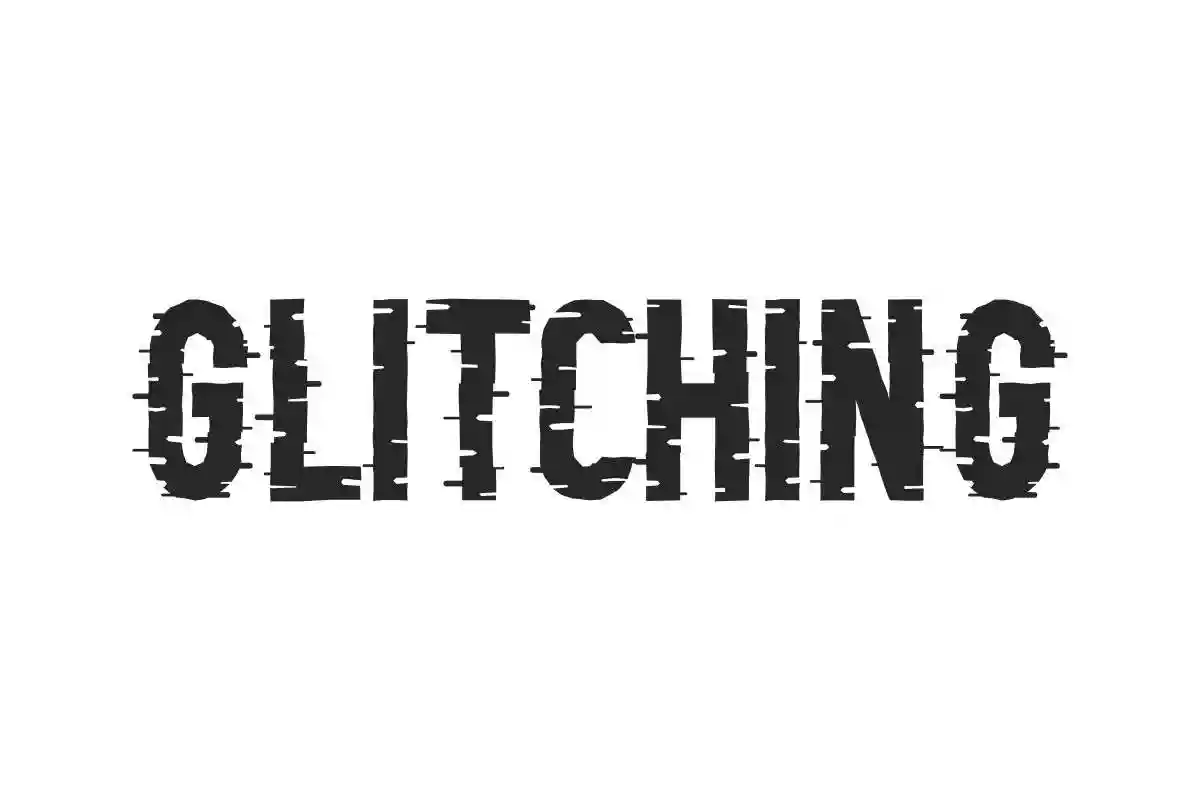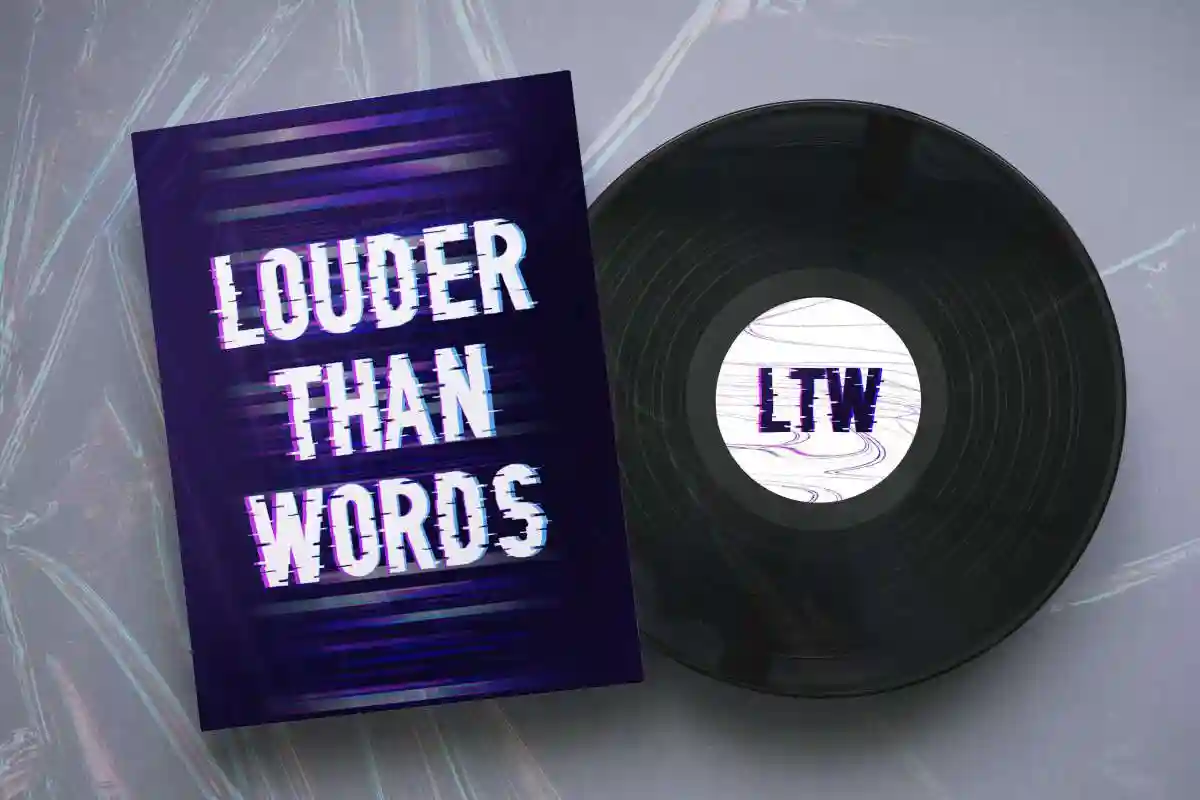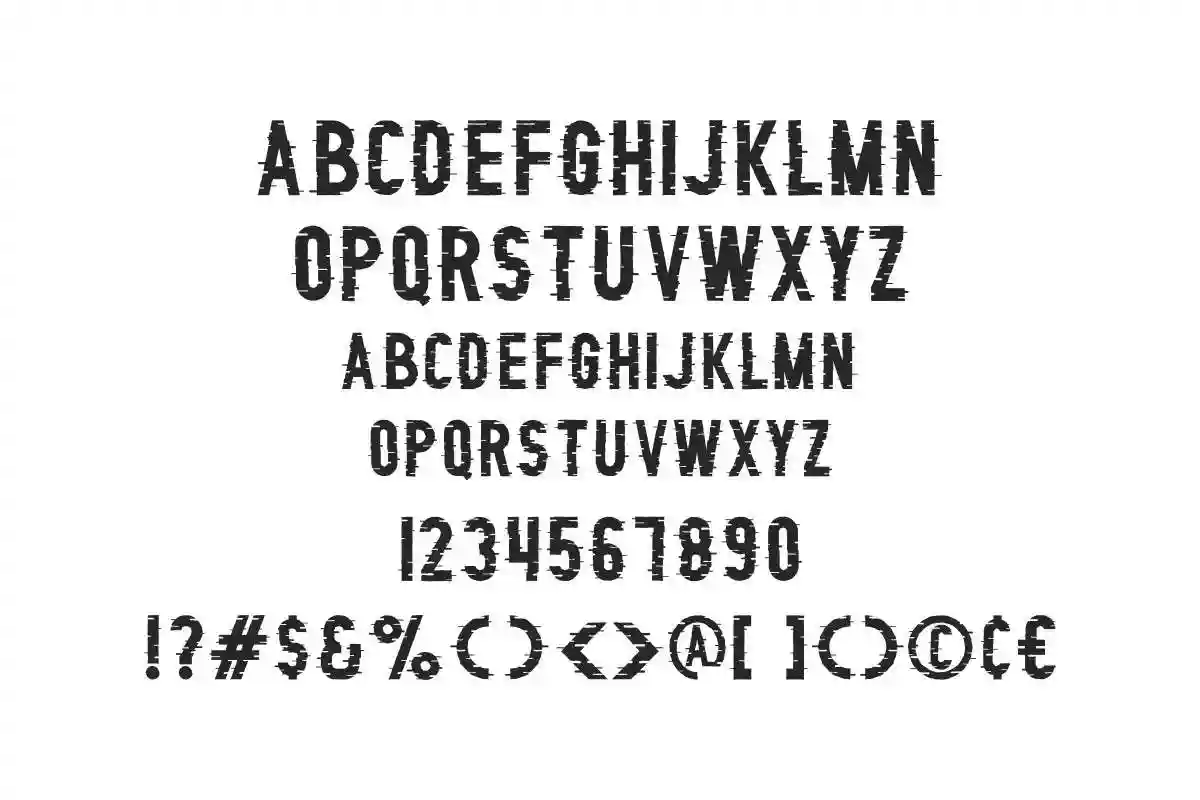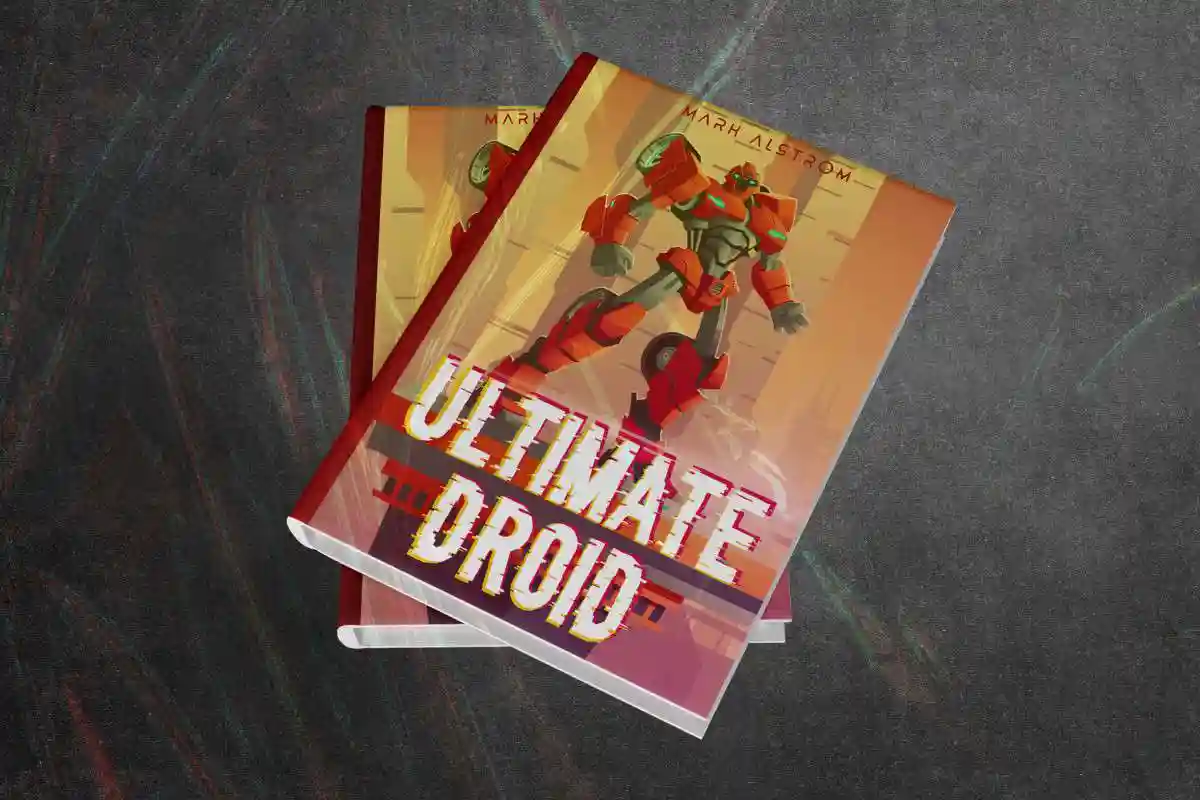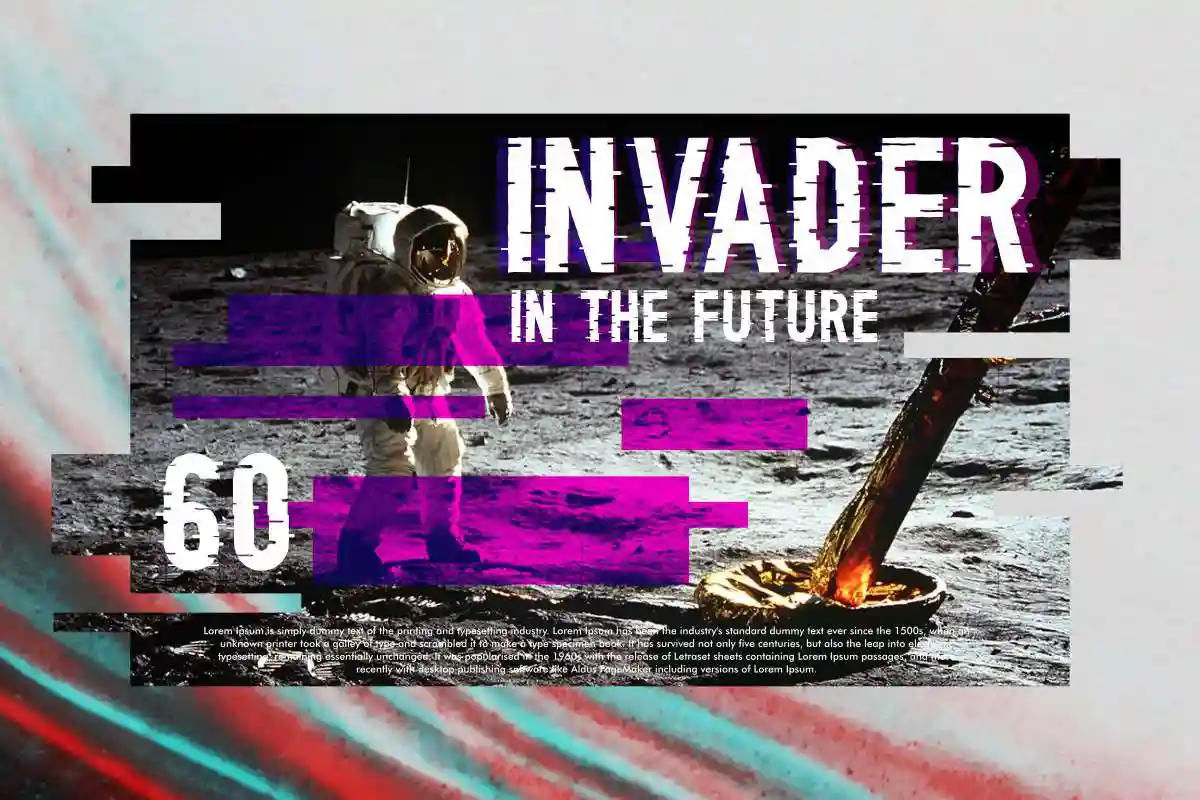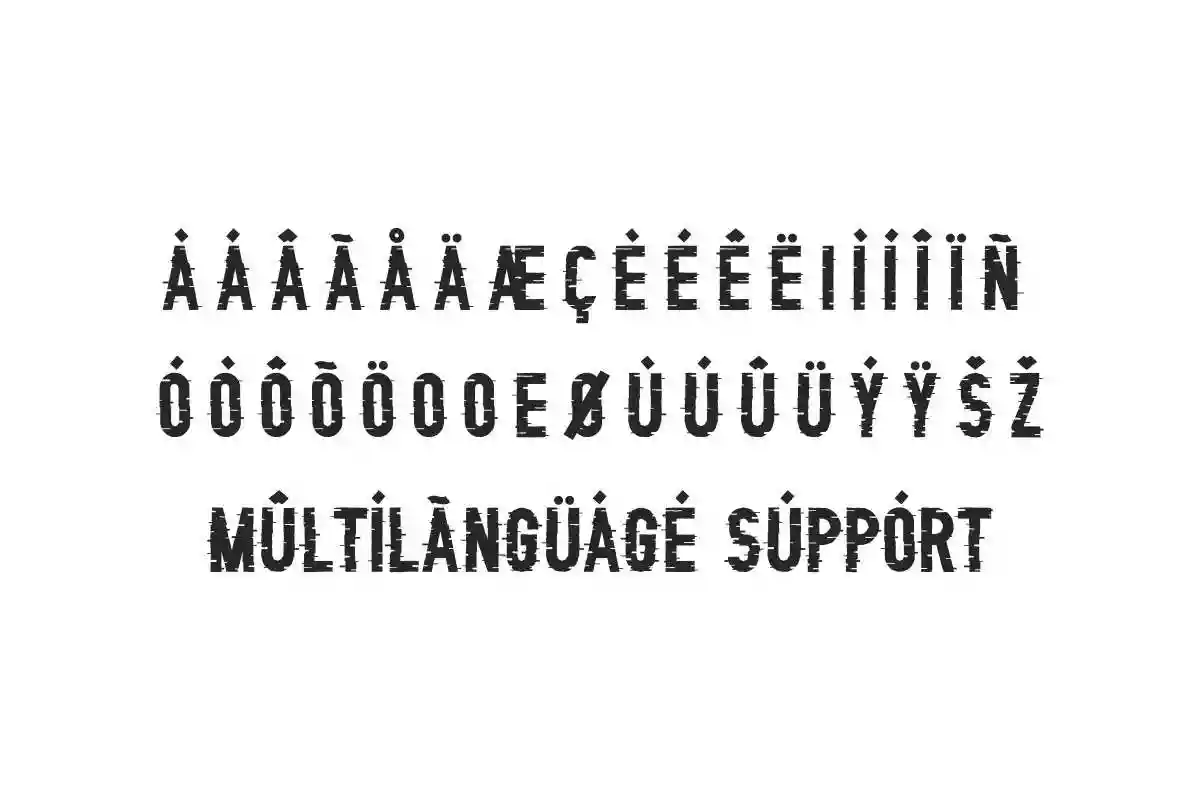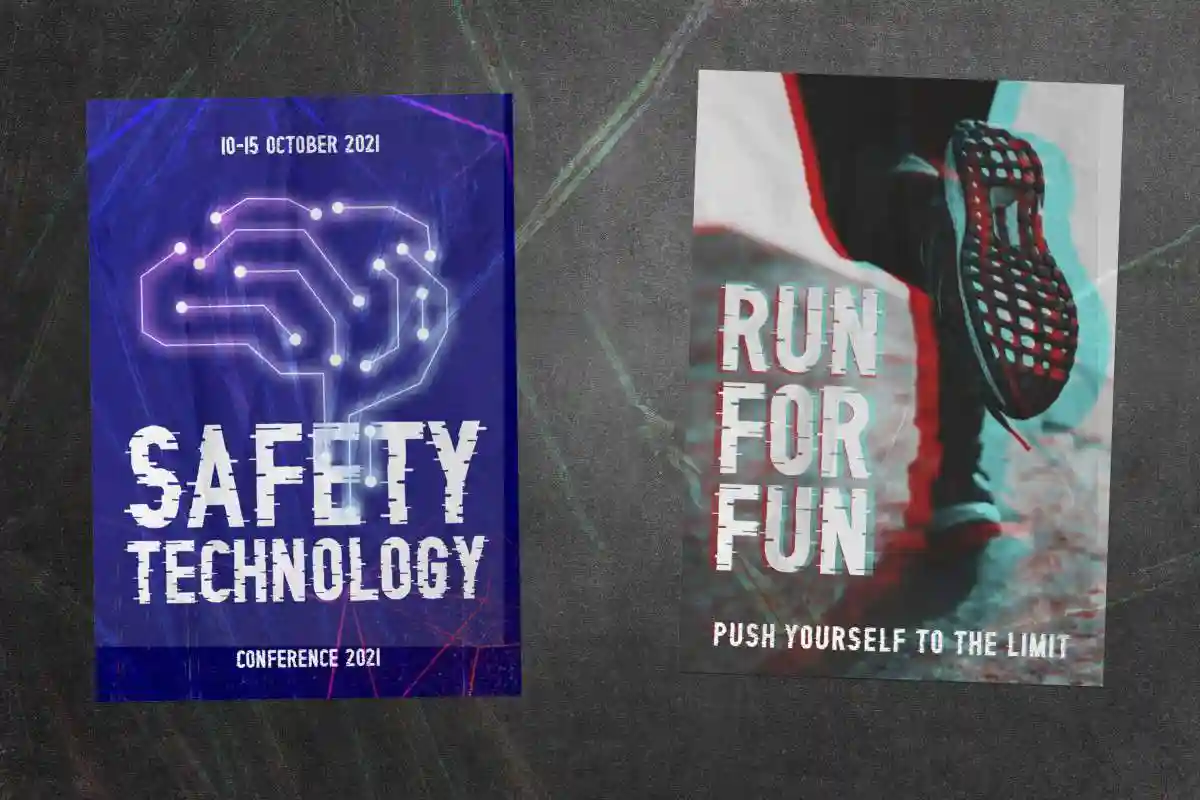
Glitching Font is a display font by NihStudio. The font has a distorted line effect. It will great for clothing, games, space, techno etc.
Glitching Font is a display sans serif font with distorted line effect, try the font by typing your own text below. Please note that the test font below is a demo file, so some specimens/characters will not show up.